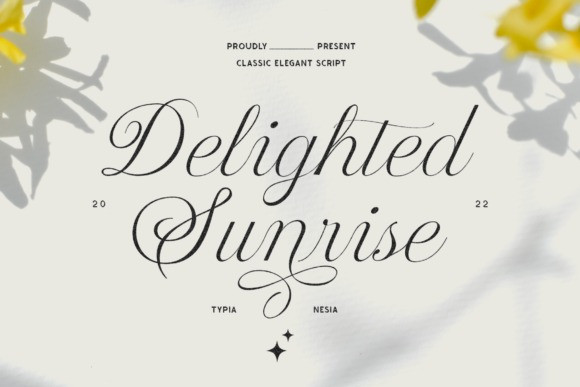
Delighted Sunrise Font
Delighted Sunrise Font is a vintage and elegant script font, featuring a gorgeous flow. It is ideal for royal branding, wedding design, blogging, social media, restaurant branding, invitation cards or various other creations. This font is PUA encoded which means you can access all glyphs and swashes with ease!